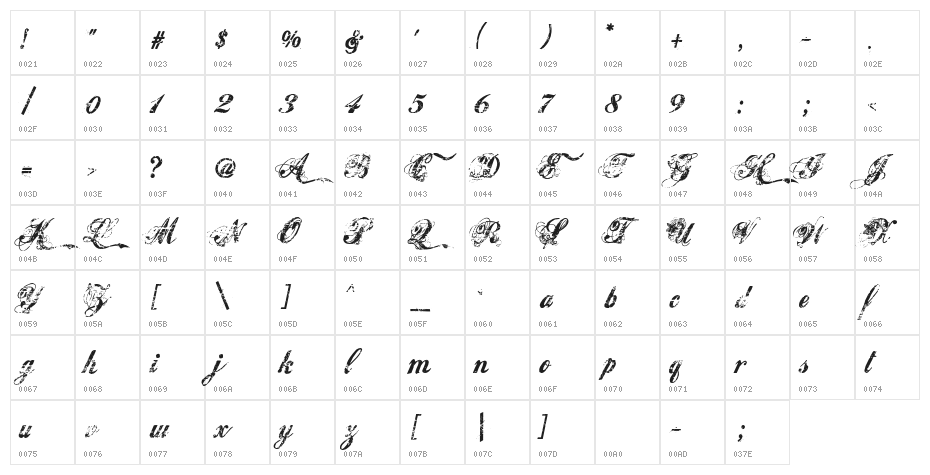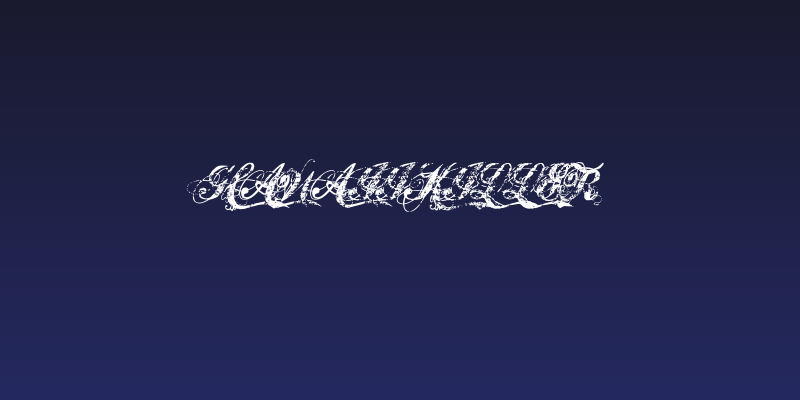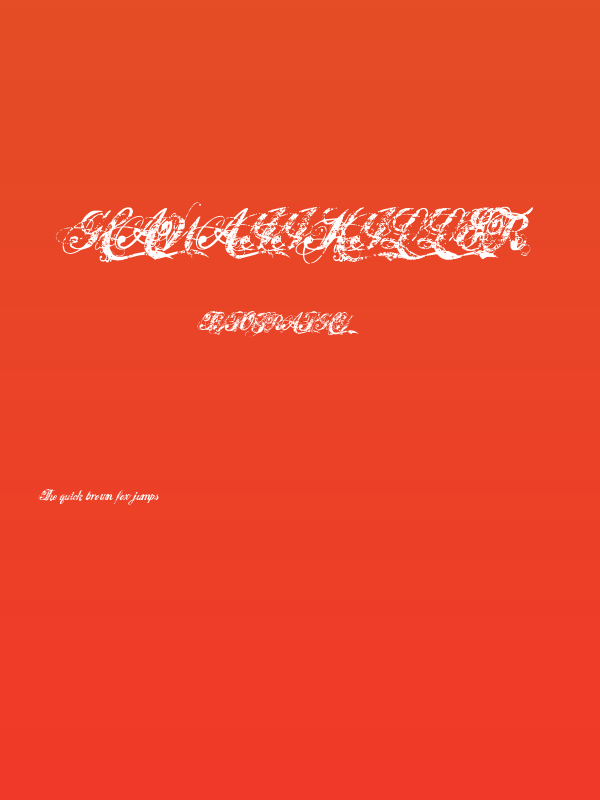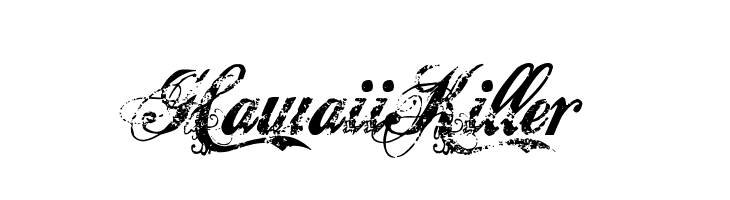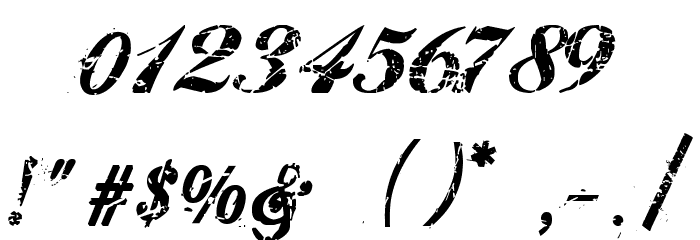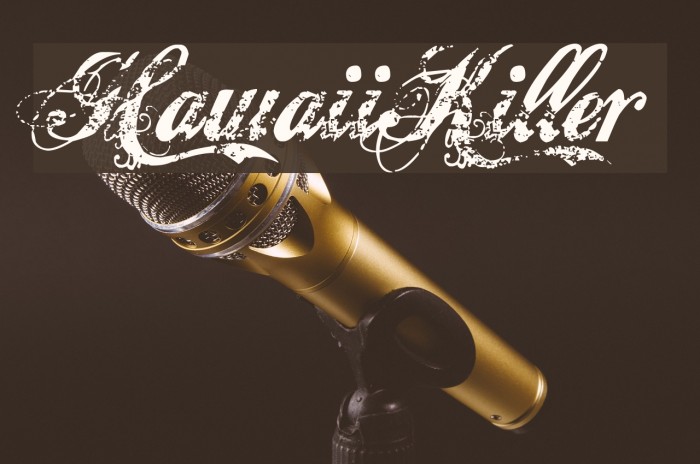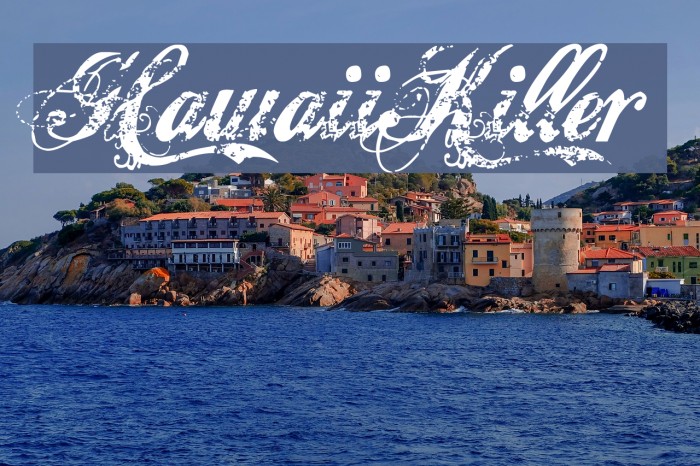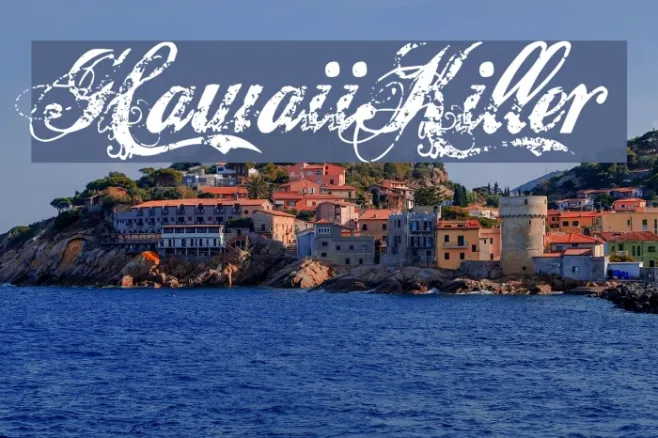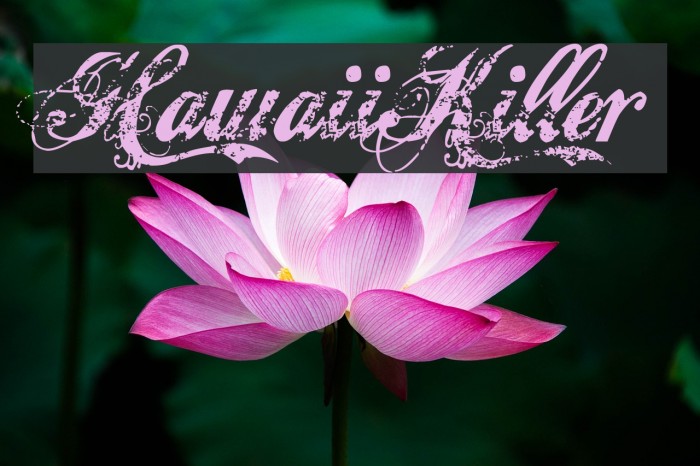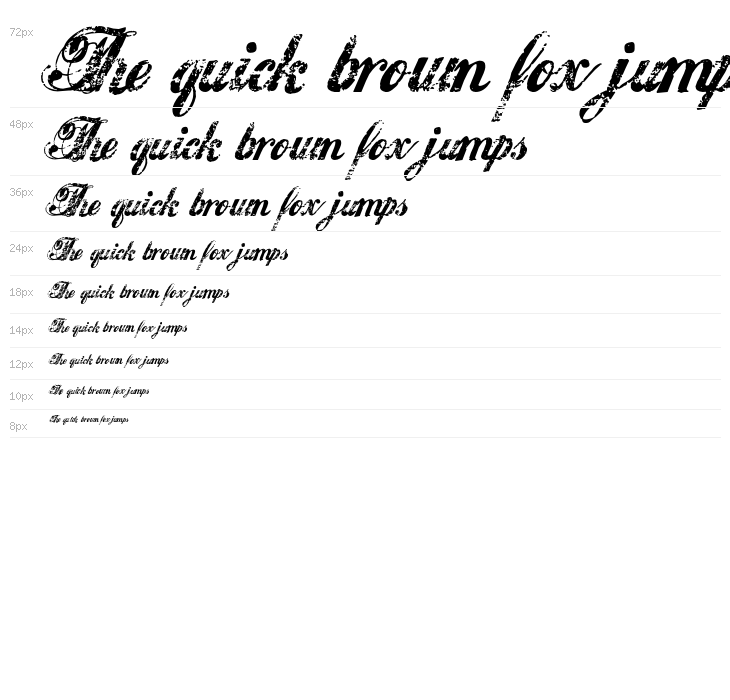
HawaiiKiller Font
HawaiiKiller Description
This font exhibits a highly decorative and distressed style, characterized by its intricate and elaborate script design. The letters are adorned with flourishes and swirls, giving it a vintage and artistic appearance. The texture is rough and weathered, suggesting a grunge or worn effect that adds to its unique charm. The uppercase and lowercase letters maintain a consistent style, with the uppercase being more elaborate. Numbers and special characters follow the same distressed aesthetic, ensuring a cohesive look across all characters.
| Use Case | Logos, Posters, Artistic projects |
| Proposed Projects | Ideal for vintage-themed designs, album covers, posters, and artistic projects that require a bold and unique statement. |